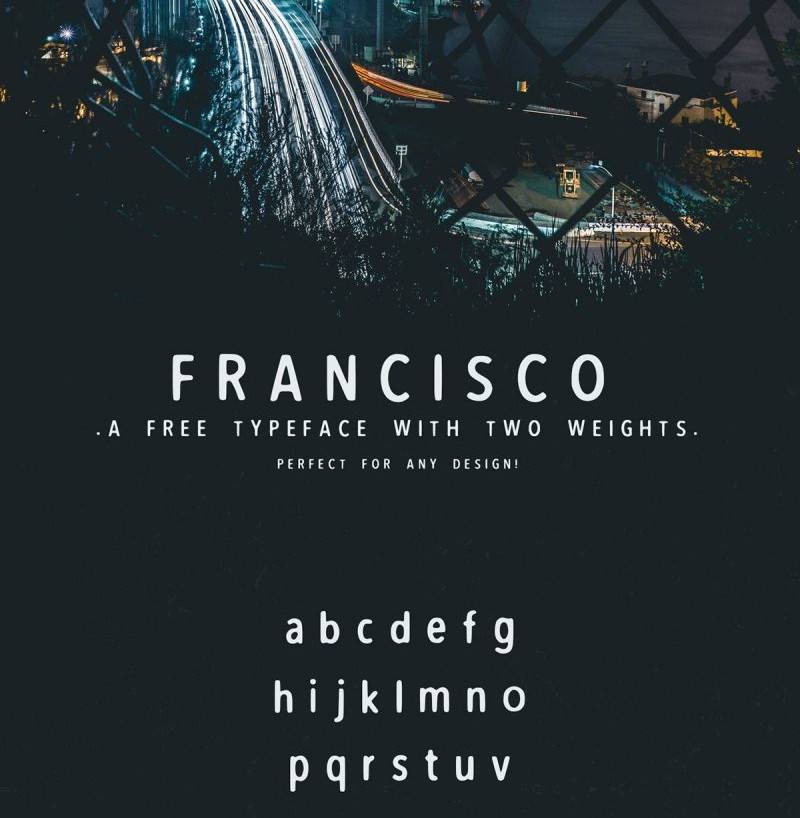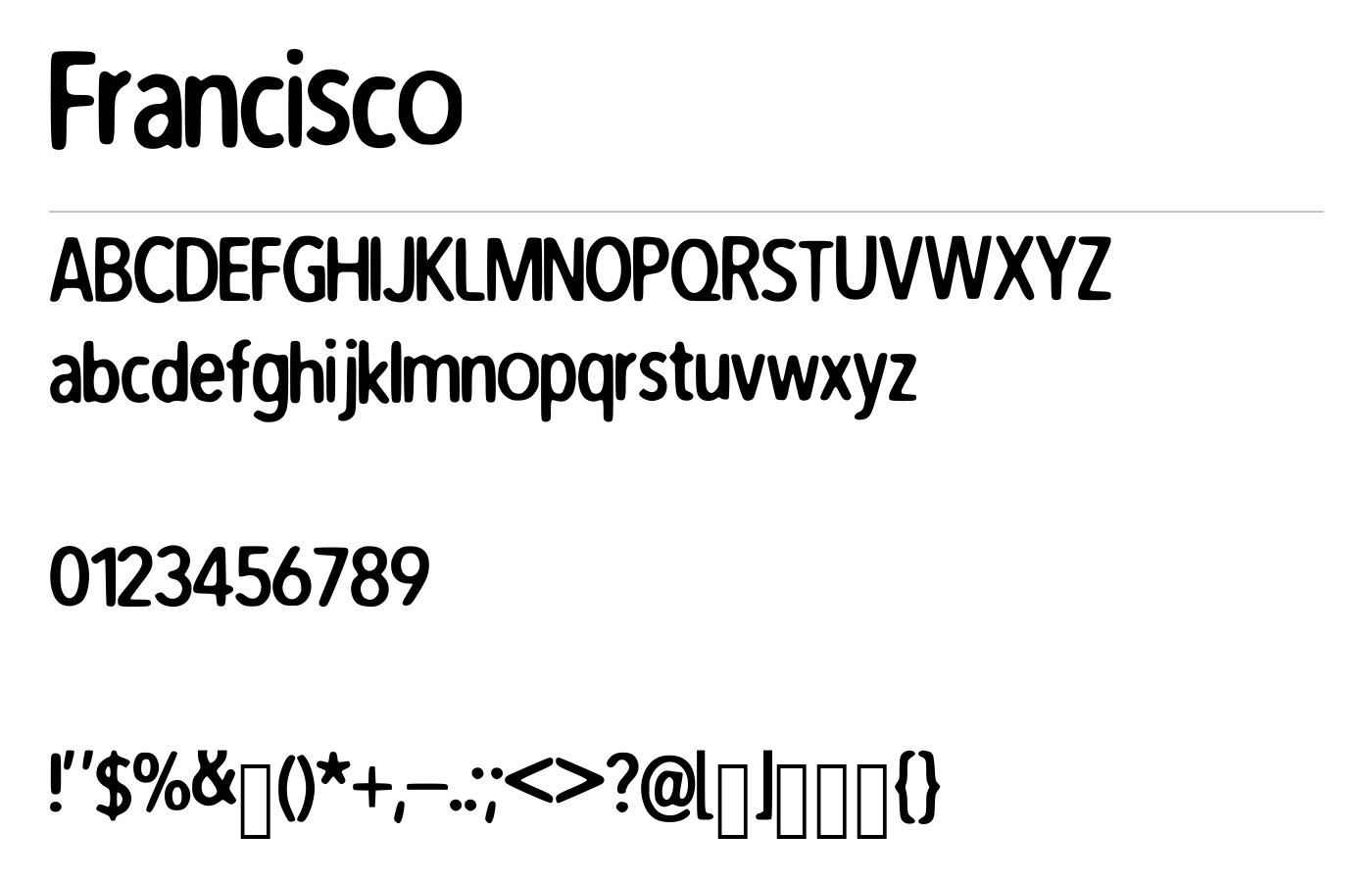
Francisco is a playful and friendly sans serif font with a hand-drawn feel, featuring slightly irregular, rounded letterforms that add warmth and approachability. Its moderate weight and open spacing make it highly legible, ideal for casual branding, children’s content, or any design seeking a relaxed, informal vibe. This font works well for logos, packaging, and headlines where a personal, charming touch is desired.
Francisco Font
About Francisco Font